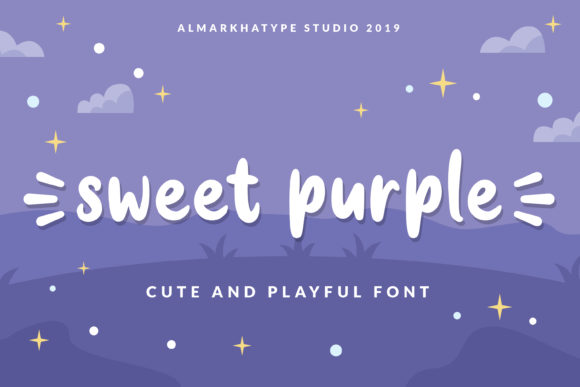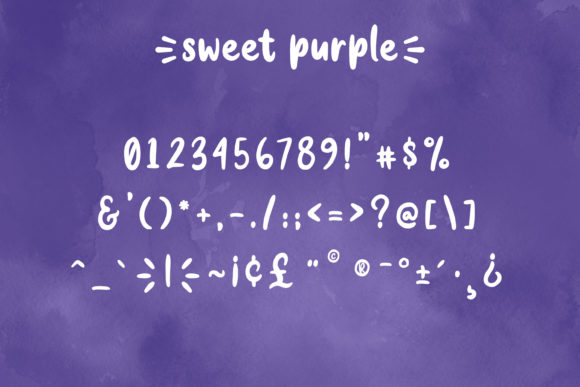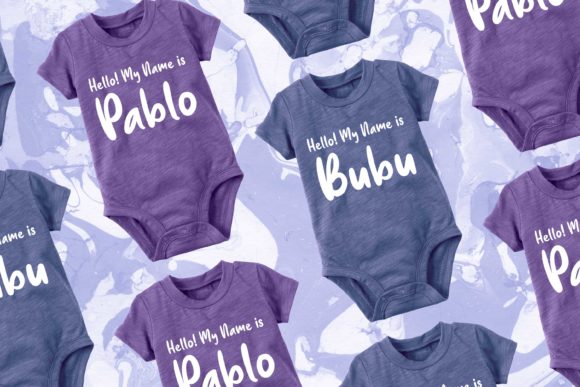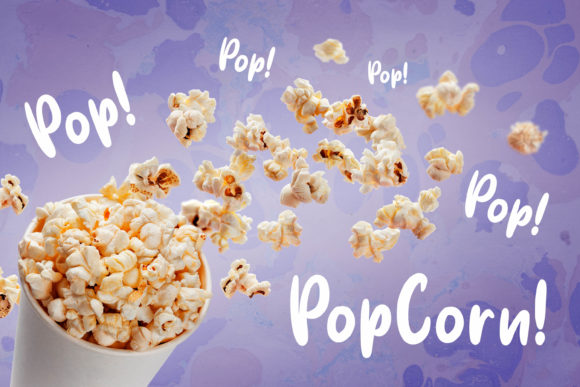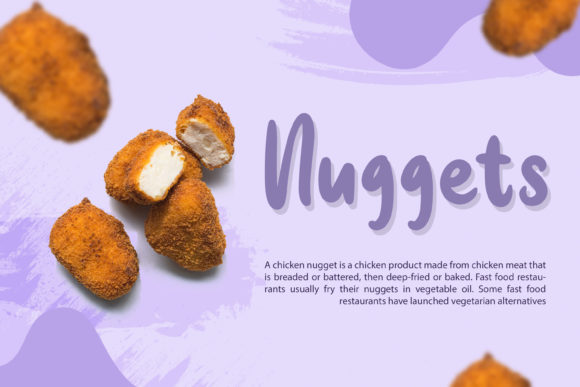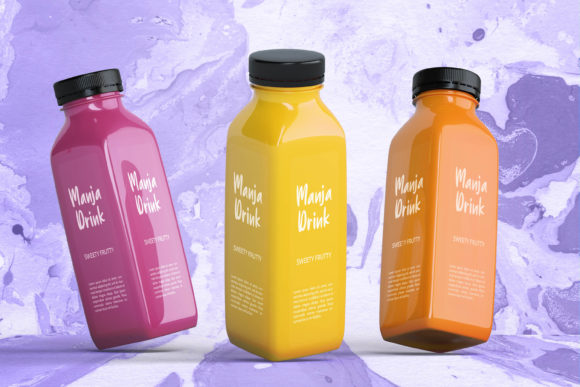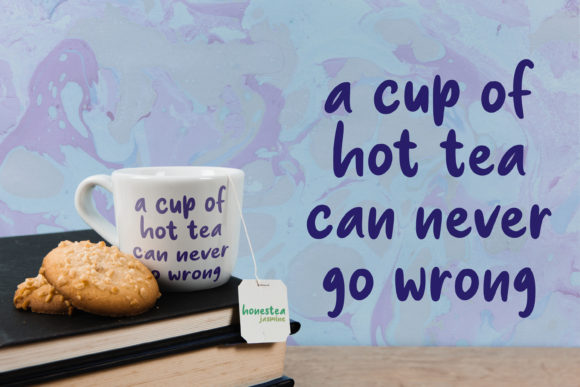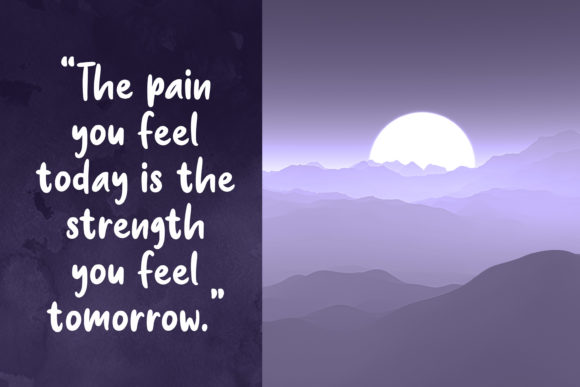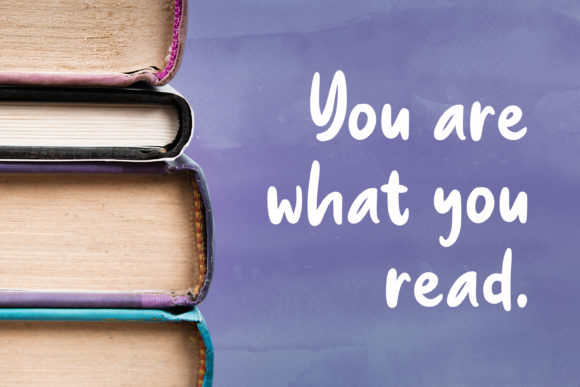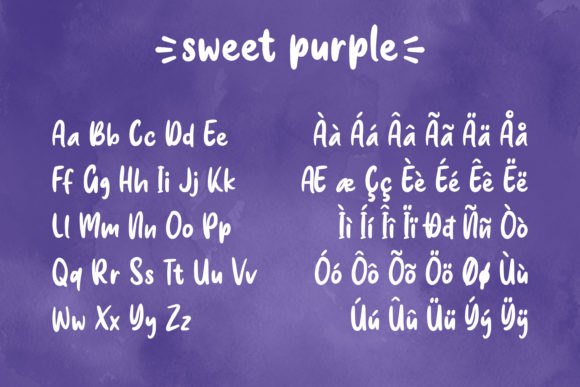
Sweet Purple Font
Sweet Purple is a cute & playful font that will make your design looks modern, unique and fun.
Perfect for labels, quotes, posters, DIY projects, branding, packaging, greeting cards, websites, photography overlays, signs, window art, scrapbooking, tags and so much more!